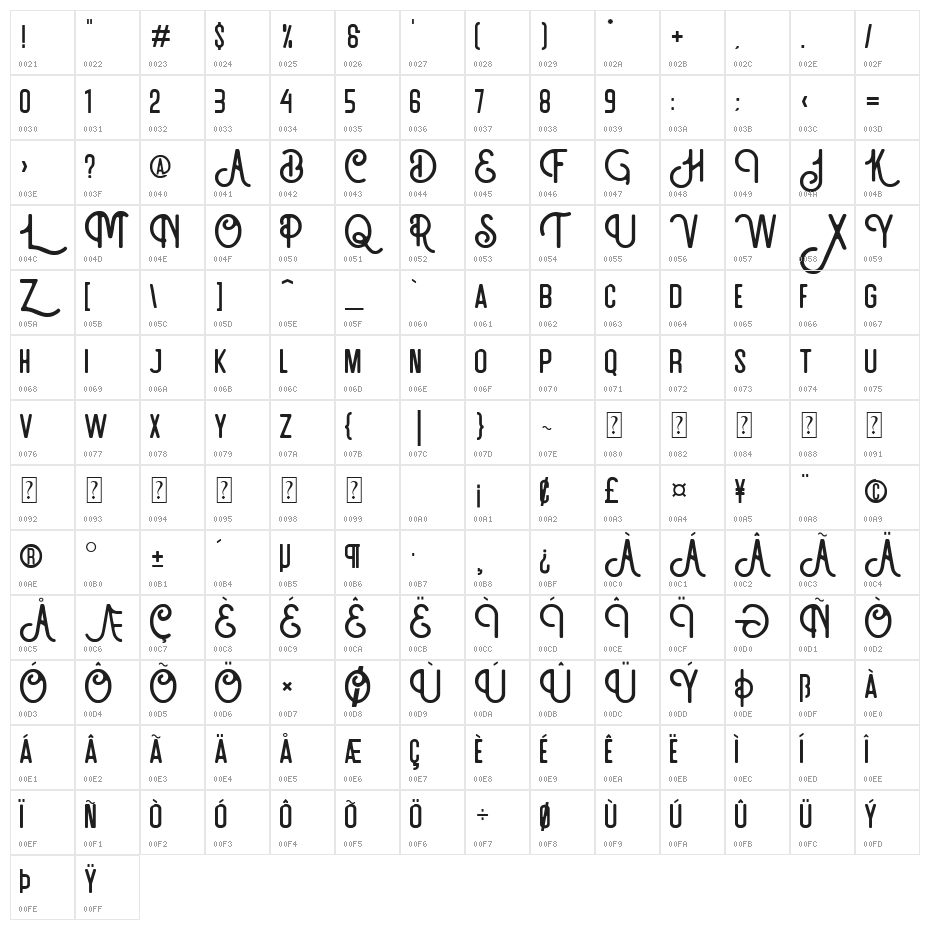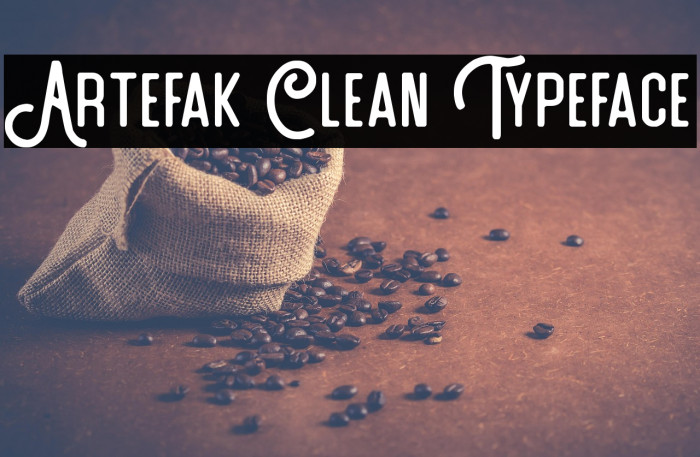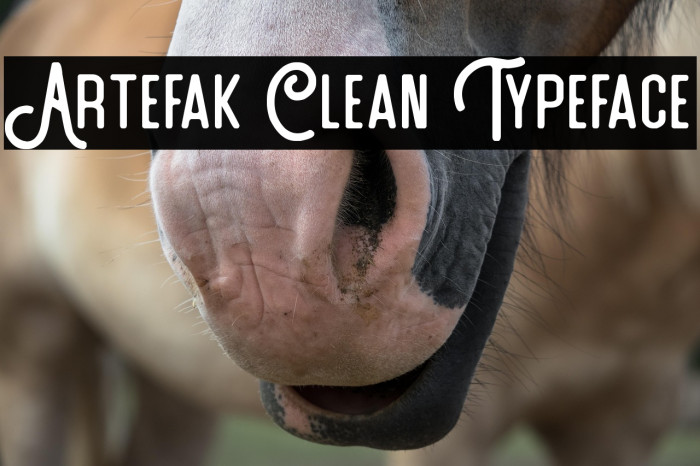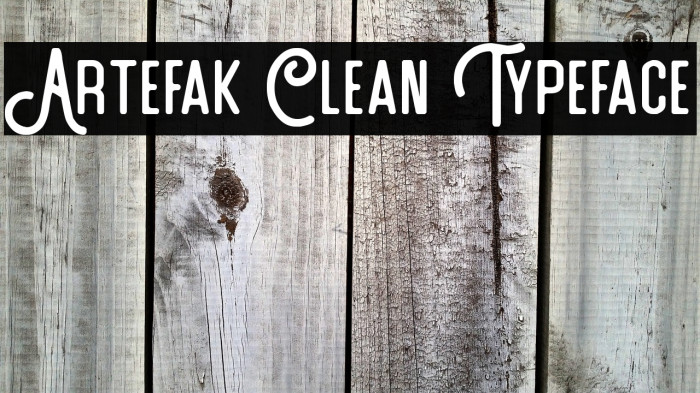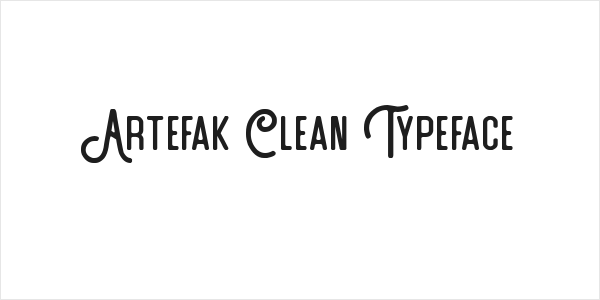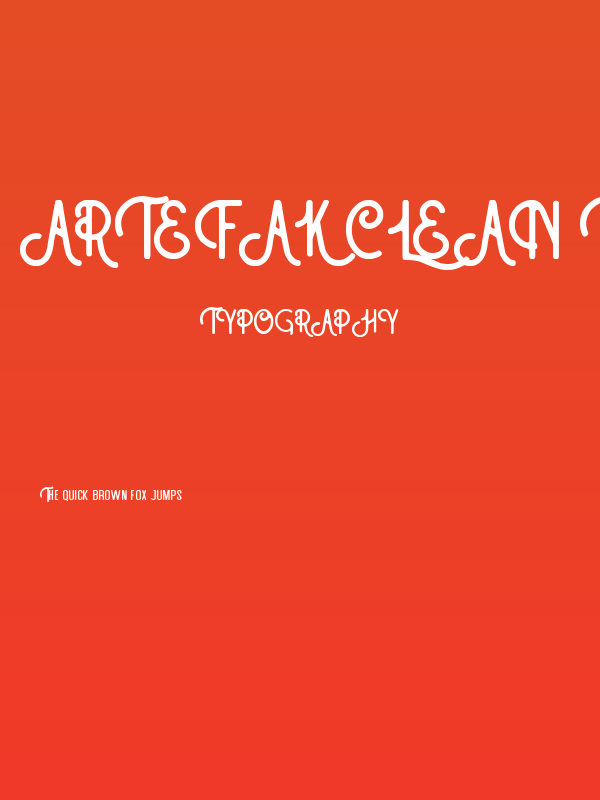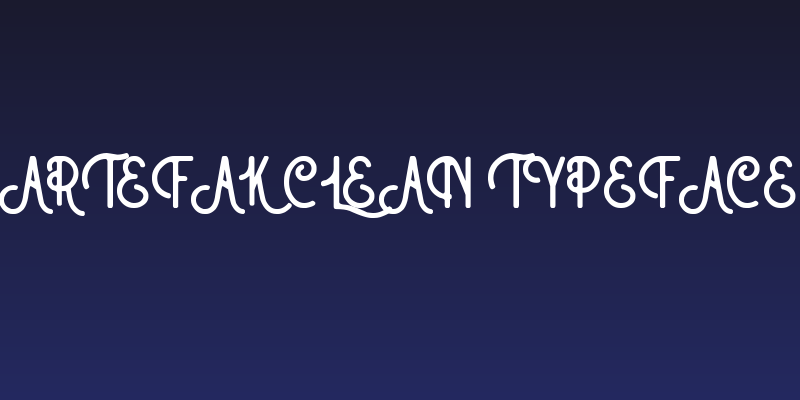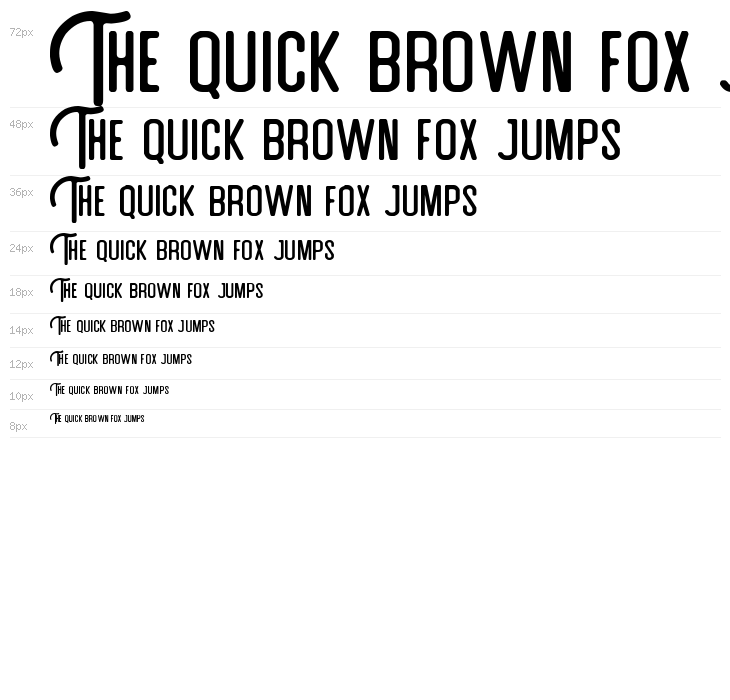
Artefak Clean Typeface Font
Artefak Clean Typeface Description
This typeface features a unique blend of decorative and modern elements, characterized by its distinct uppercase and lowercase letters. The uppercase letters have a playful, curvy design with a touch of vintage flair, while the lowercase letters are more straightforward and modern. The numbers and special characters maintain a consistent style, offering a cohesive look across all glyphs. The font's design is versatile, making it suitable for a variety of creative projects. Its bold weight and normal width provide a strong visual impact, while the medium contrast in stroke thickness adds to its readability. The character spacing is normal, ensuring clarity and legibility in different contexts.